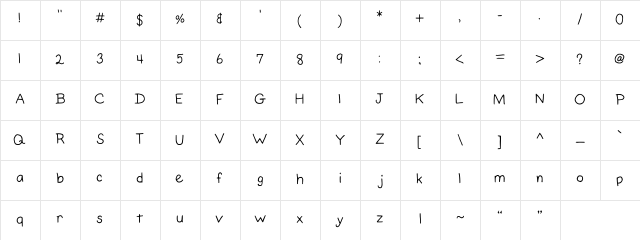
Elaine's hand printing Medium
Design Context for Elaine's hand printing Typeface
Elaine's hand printing flows with the natural rhythm of handwritten lettering, making it ideal for designs that call for warmth and personal expression.
Font Pairing: Combine Elaine's hand printing with a simple geometric sans for maximum contrast — the tension between flowing curves and clean structure is a classic typographic pairing.
Pro Tip: Pair Elaine's hand printing with a clean sans-serif for supporting text. The contrast between fluid script and geometric structure creates an elegant typographic hierarchy.